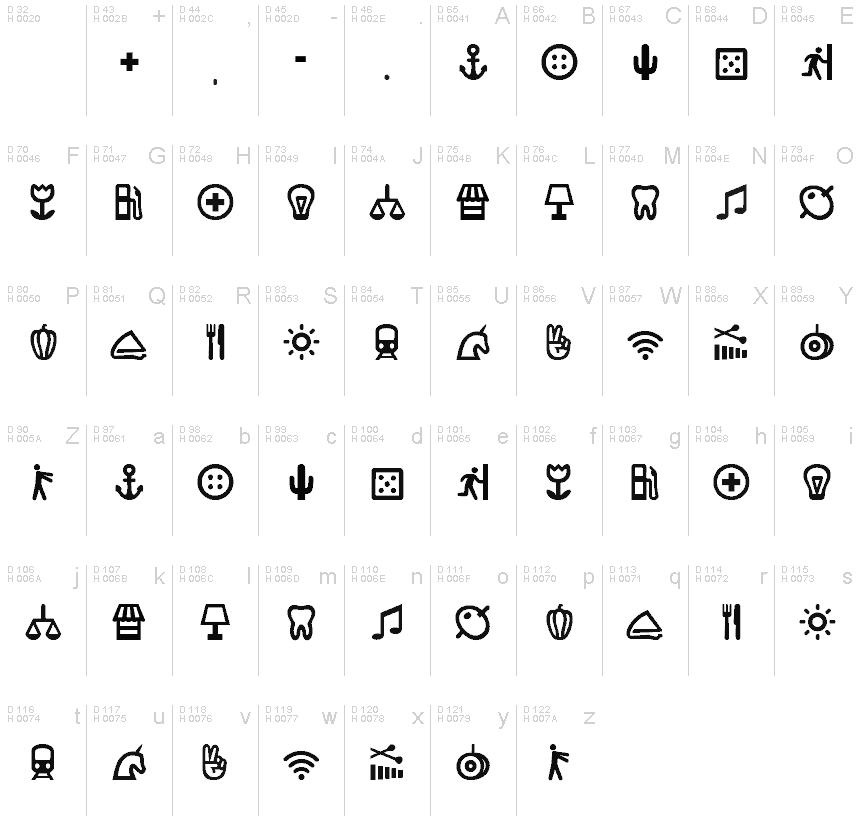
Ancla Alphabet
It is a Rebus font based on icons and symbols that can be intuitively decrypted and whose key words start by the same letter in English, Spanish and French.